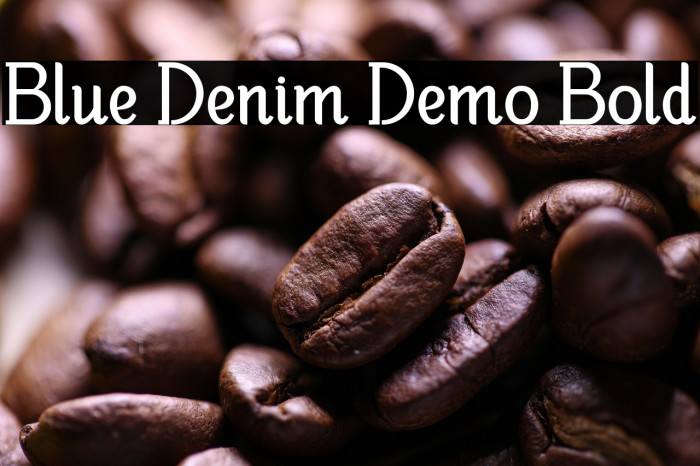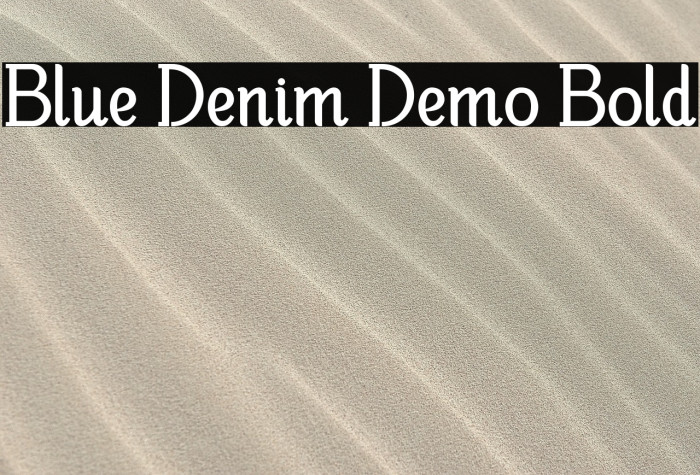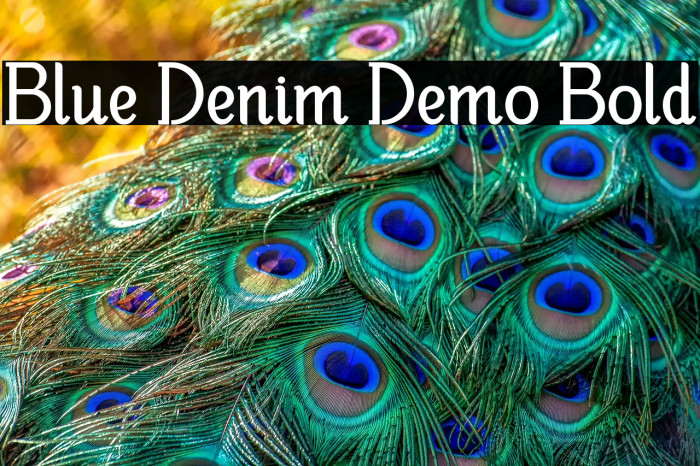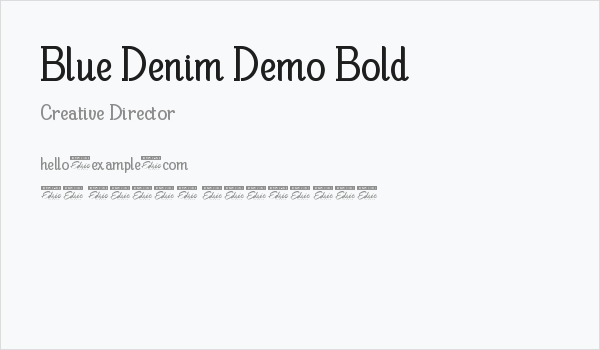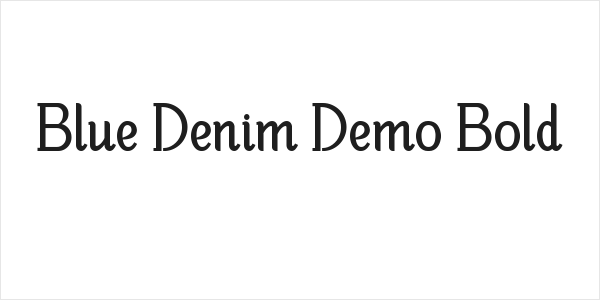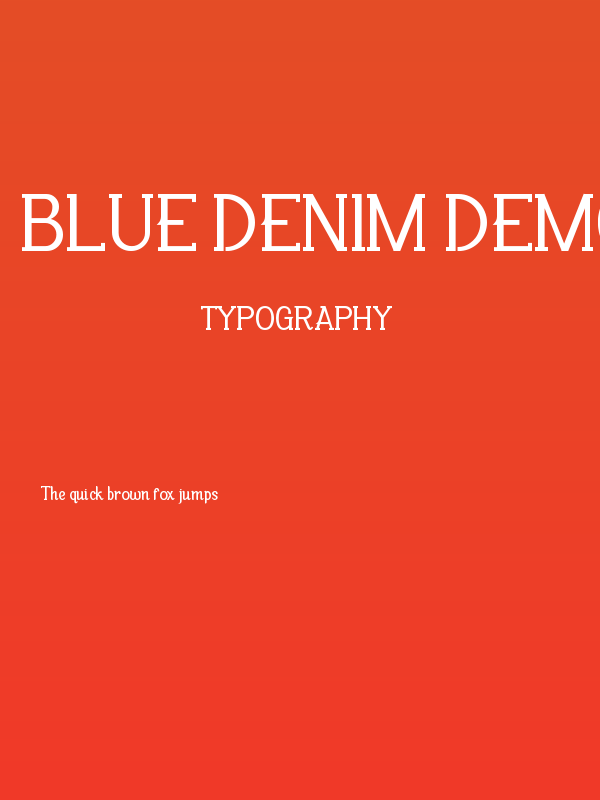
Blue Denim Demo Bold Font
Blue Denim Demo Bold Description
This font features a bold and robust design with a modern twist. The uppercase letters are strong and structured, while the lowercase letters maintain a playful yet sophisticated appearance. The strokes are consistent, providing a clean and polished look. The font's unique character is highlighted by its slightly curved edges and subtle serifs, making it versatile for various design needs. Its boldness ensures readability, while the slight curvature adds a touch of elegance and style.